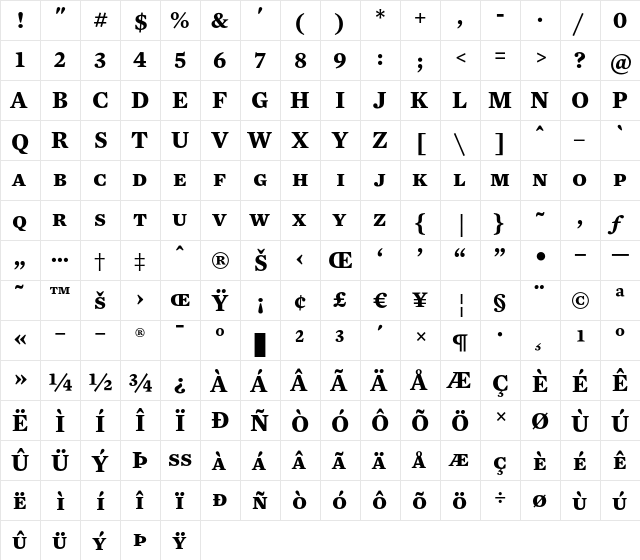
Mercury Text G3 Bold SC
Design Context for Mercury Text G3 Typeface
Mercury Text G3 takes a measured approach to typography — its balanced proportions and neutral character make it a reliable workhorse for both digital and print work. The heavy weight commands attention and anchors typographic hierarchies.
Pro Tip: Use Mercury Text G3 in both headline and body roles to test its range before committing to a single application.